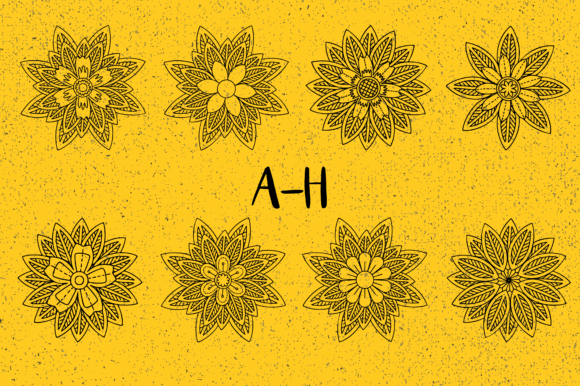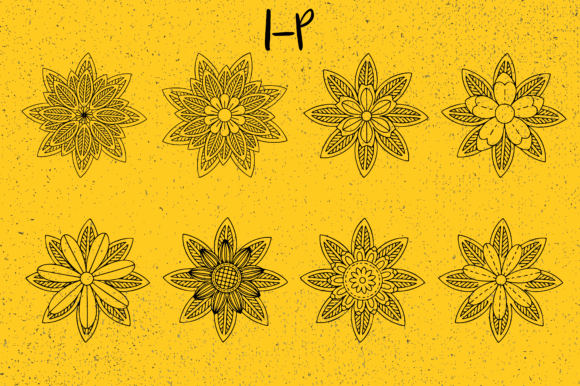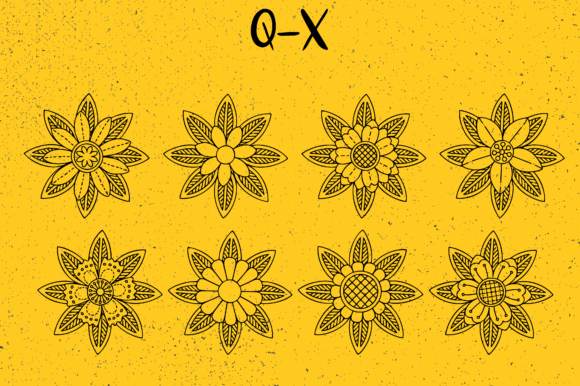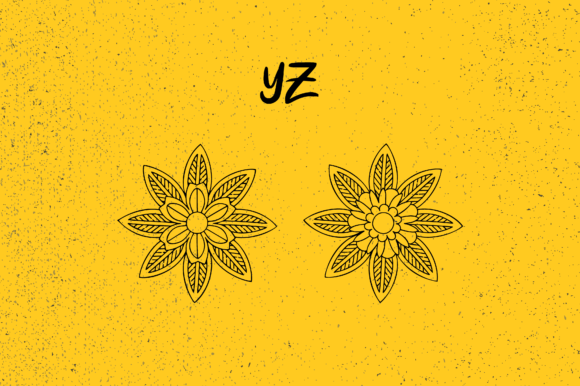
Blossom Font
About Blossom Font
Blossom is a breathtaking dingbats font that’s designed to help you generate a wide range of unique and highly detailed floral elements by typing capital and small letters as well as numbers. The font features a set of gorgeous, ornate floral elements that can be combined to create custom designs.
One of the great things about Blossom is its versatility. The font can be used for a wide range of projects, from creating custom stationery to designing invitations for garden parties or weddings. The font’s unique and detailed style makes it perfect for projects that need a touch of elegance and personality, and the font’s customizable nature makes it an excellent choice for designers who want to add a custom touch to their designs.
In addition to its ease of use and versatility, Blossom is a fantastic font for adding personality and uniqueness to your designs. The font’s unique and detailed style sets it apart from other floral fonts, making it an excellent choice for designers who want to set their designs apart from the competition.
Overall, Blossom is a beautiful dingbats font that’s perfect for a wide range of design projects. Whether you’re a wedding planner, an event designer, or just someone who loves flowers, Blossom is an easy-to-use and intuitive font that anyone can use to create memorable and unique floral designs. The font’s unique and detailed style makes it a perfect choice for designers who want to add a custom touch to their designs, and it’s a great tool for those who want to create custom stationery, invitations, or other projects that need a delicate and elegant touch.